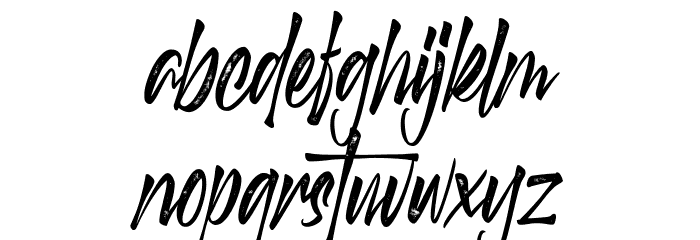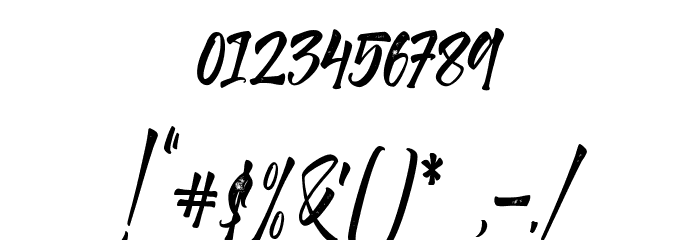
Scotland stories DEMO Font
This font features a dynamic and expressive handwritten style, characterized by its flowing and slightly irregular strokes. The uppercase letters are bold and elongated, with a playful yet sophisticated flair. The lowercase letters maintain a consistent fluidity, enhancing the font's overall organic feel. Numbers and special characters are crafted with the same attention to detail, ensuring a cohesive look across all elements. The font's textured appearance adds depth and a tactile quality, making it stand out in any design.
A dynamic, textured handwritten font with bold, flowing strokes.
- Font: Scotland stories DEMO
- Proposed Projects: Ideal for branding projects, invitations, greeting cards, and social media graphics where a personal touch is desired.
- Category: Handwritten
- Use Case: Logos, Headlines, Invitations